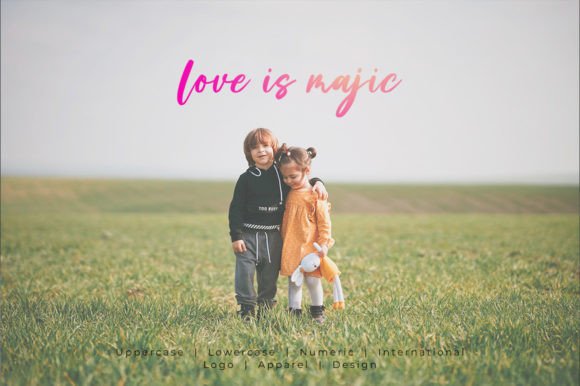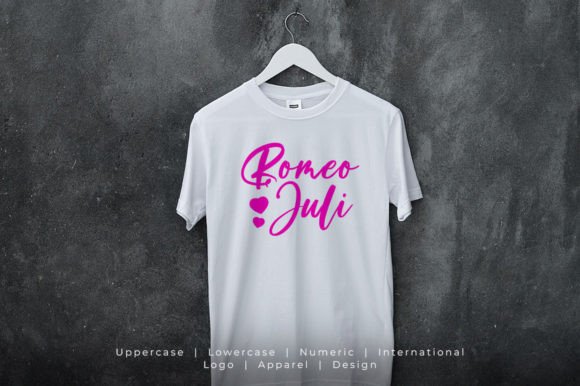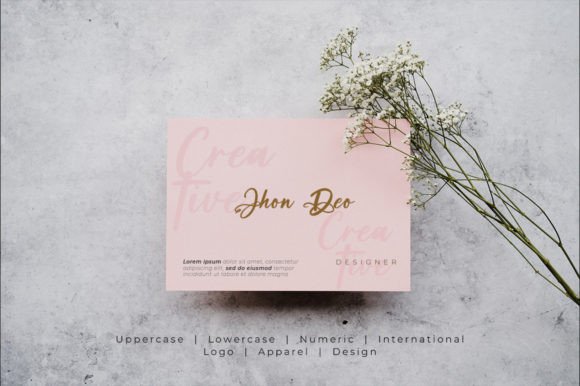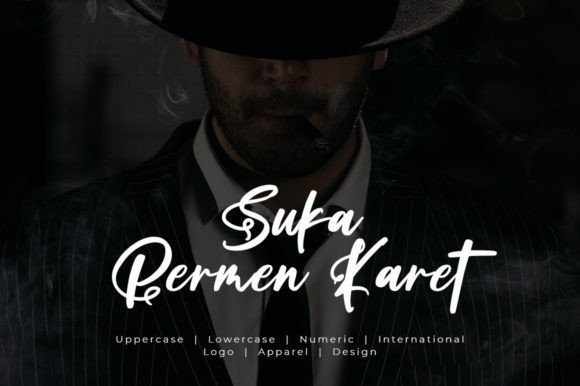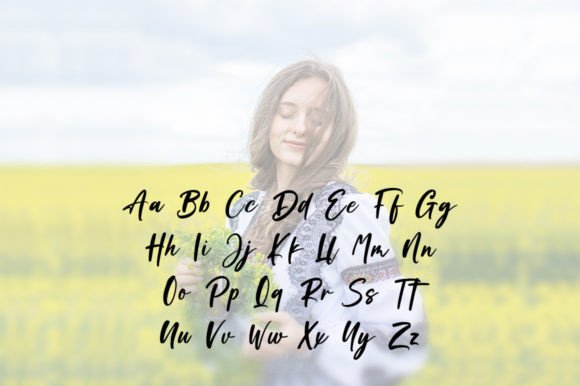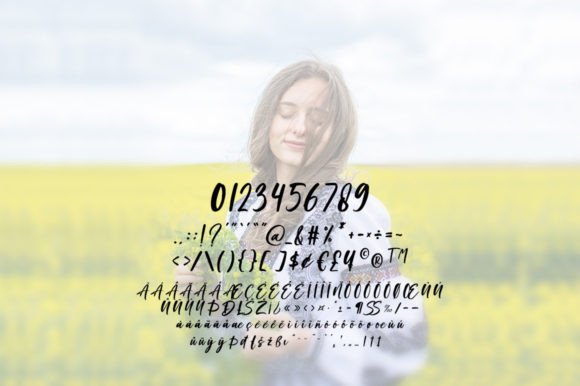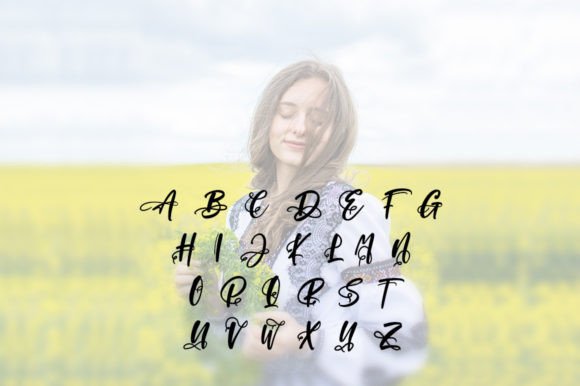
Jasmine Noise Brush Font
About Jasmine Noise Brush Font
Jasmine Noise Brush is a stylish signature font that features a varying baseline, smooth lines, and classic accents. It can be used for various purposes such as headings, signatures, logos, posters, t-shirts, signage, labels, wedding invitation, badges, etc.